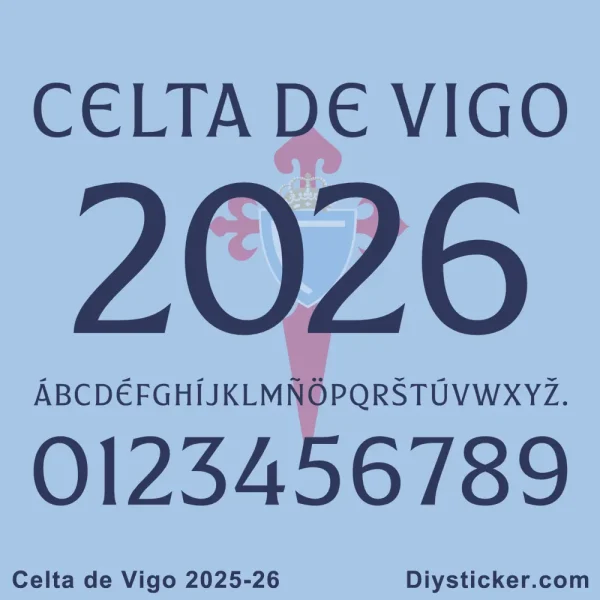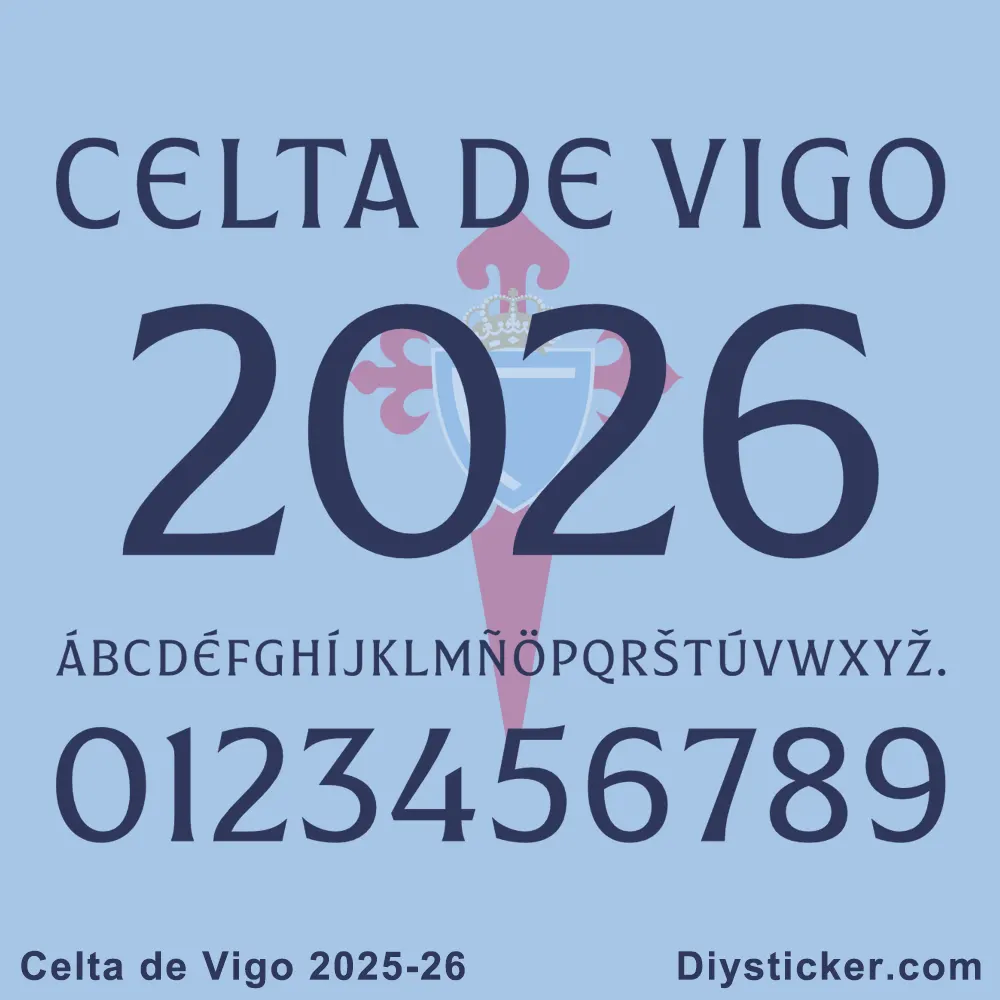
Capture the unique Galician spirit with the official Celta de Vigo 2025-26 Font. This distinctive typeface, featuring special accented characters for European languages, is used by the club on its official kits, La Liga graphics, and all communications for the new season.